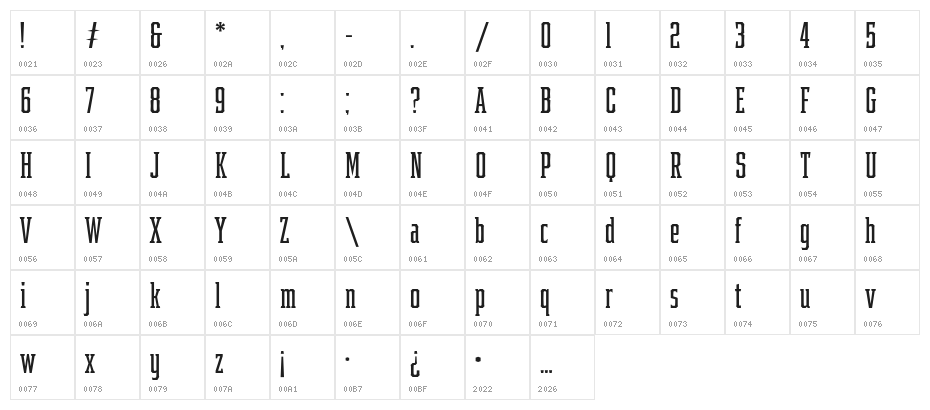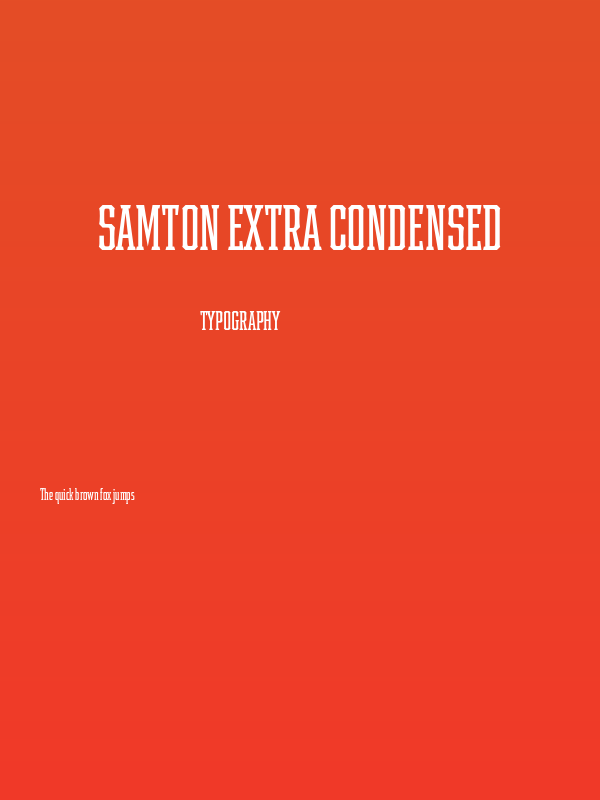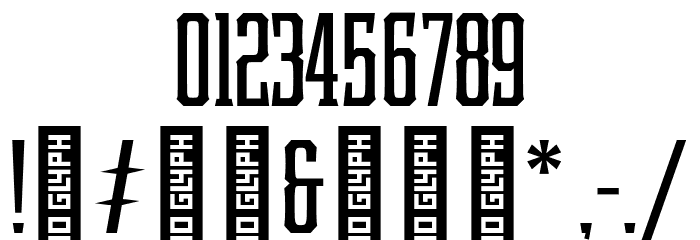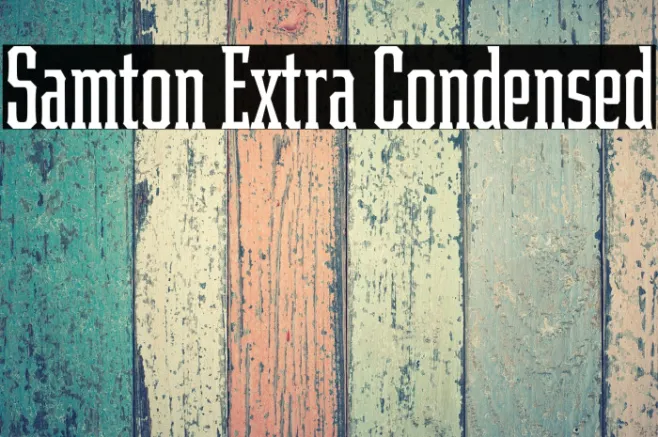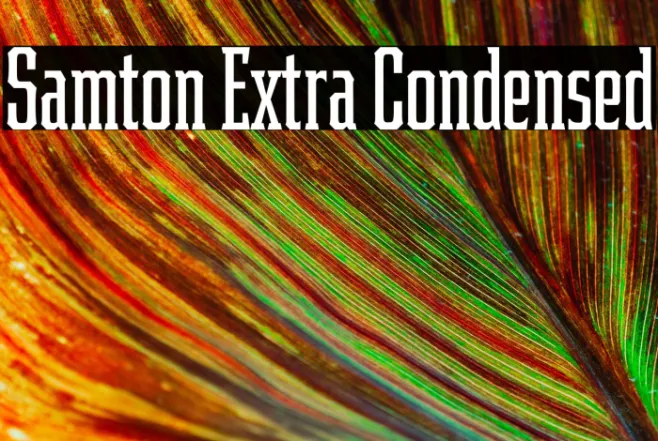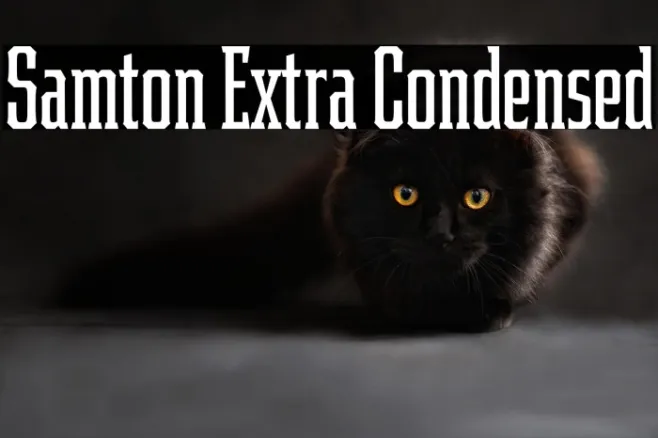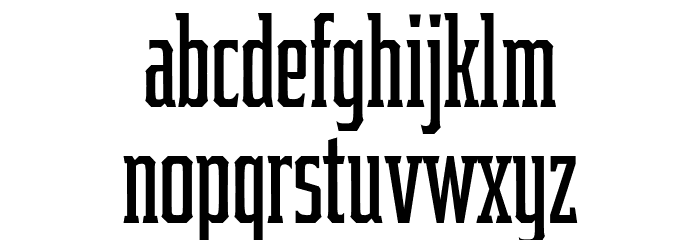
Samton Extra Condensed Font
Samton Extra Condensed Description
This font features an extra-condensed style with tall, narrow characters that emphasize verticality. The uppercase letters are bold and striking, while the lowercase letters maintain a consistent height, contributing to a cohesive appearance. The numerals are uniform in width, ensuring readability. Special characters are distinct and maintain the condensed aesthetic. The overall design is modern and sleek, suitable for making a strong visual impact.
| Proposed Projects | Ideal for posters, headlines, and branding materials where space is limited but impact is essential. |